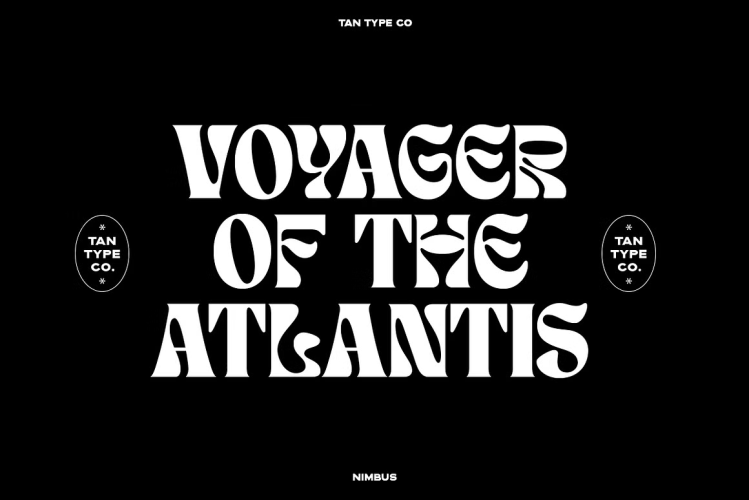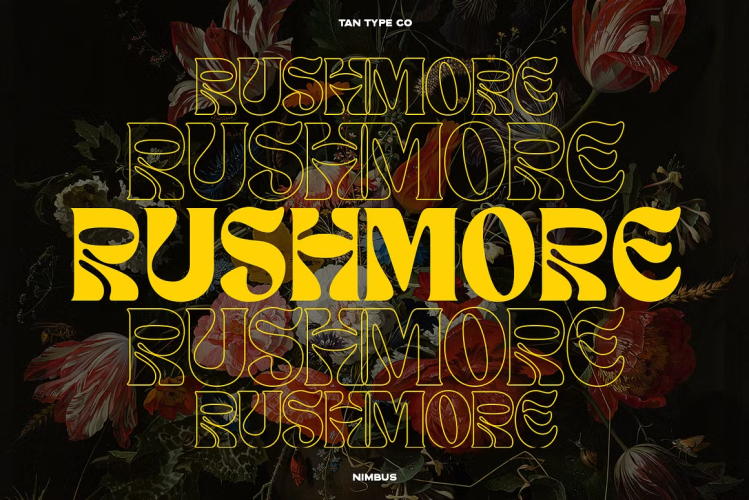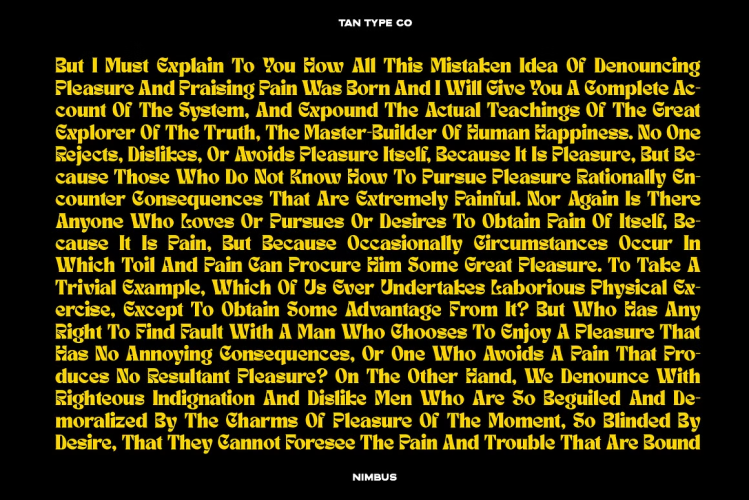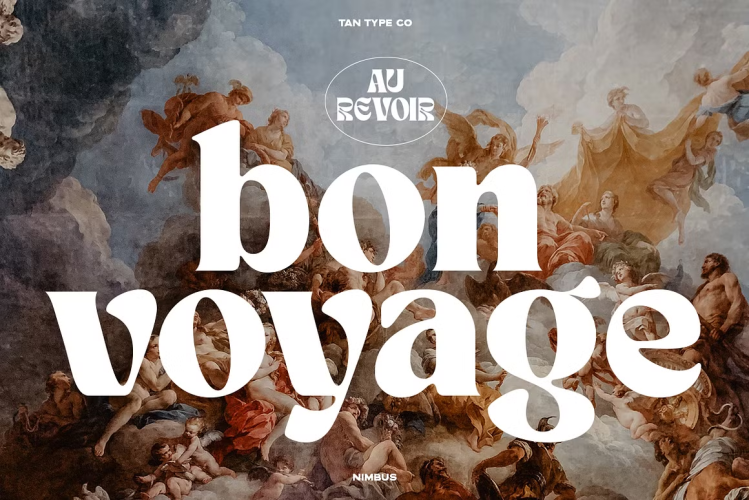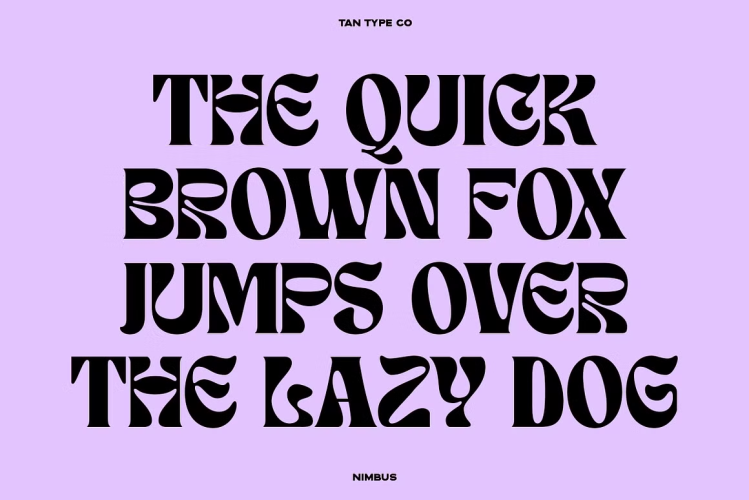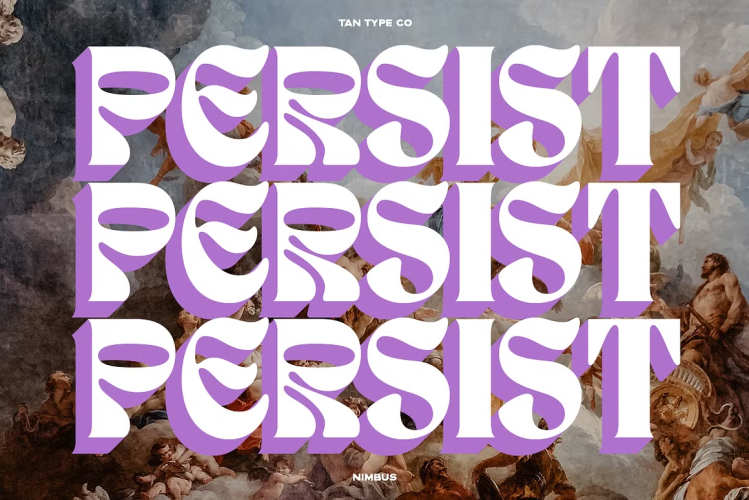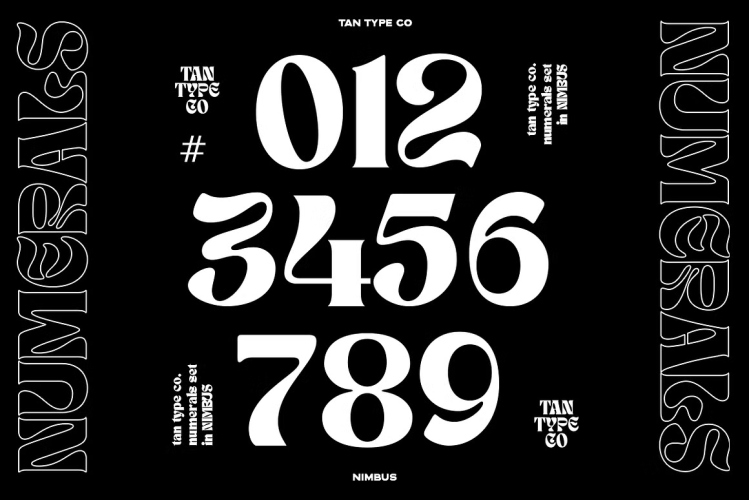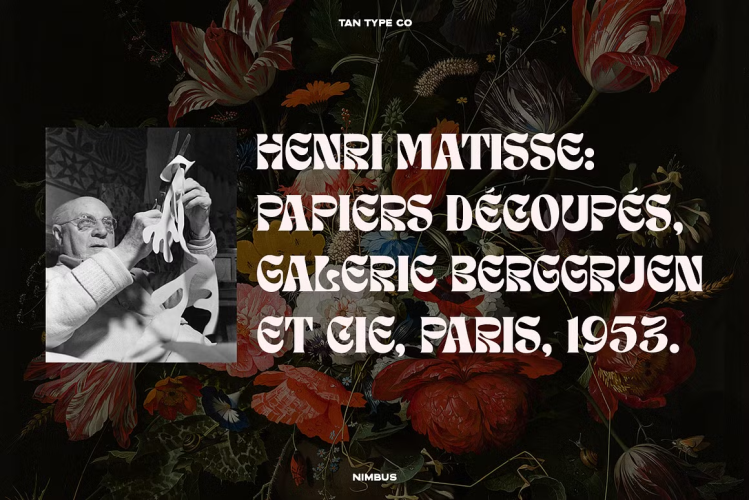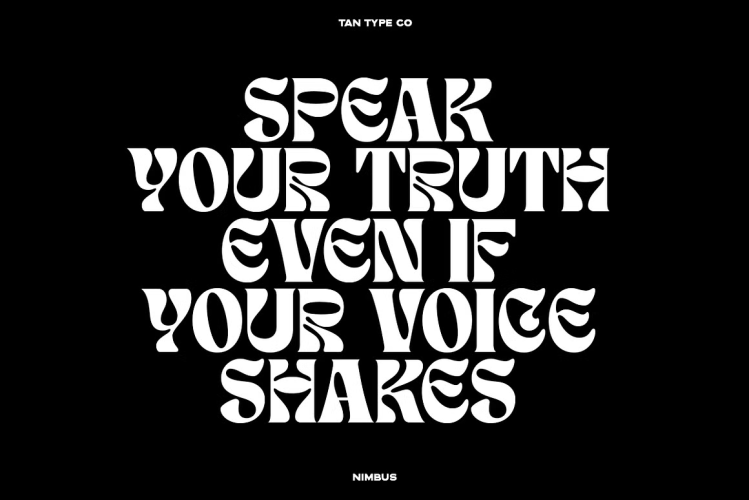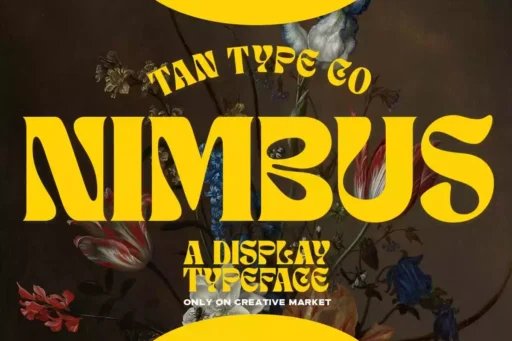
TAN NIMBUS Font
Introducing TAN NIMBUS, a font that cultivates the exuberant vibe of the psychedelic era. With its distinctive style and retro elements, this TAN NIMBUS brings a whimsy factor to your design project. Whether you do promotional posters for the music festival, design album covers, or social media creatives, TAN NIMBUS always brings a lot of pleasure and creativity into every piece.
TAN NIMBUS draws inspiration from the vibrant and accessible mood of the 1960s and 1970s, which were relatively famous for their experiments and self-expression. Its dramatic curves and out-of-place symbols, which amalgamate, make it a perfect choice for projects that demand uniqueness and originality.
However, this font is not only for making a statement; it’s also multi-functional footwear. Its clean lines and sumptuous design make it readable on various media, from screens to printed materials. The font allows you to design websites, packaging, or promotional materials professionally and effectively.
Hence, if you want to dress your project with a vintage flair and an original personality, TAN NIMBUS is the one for you. Its psychedelic-inspired aesthetic will take you to endless creativity and imagination. By TAN NIMBUS, you can fully enjoy the moment of the journey that will be forever etched in your memory.
Where TAN NIMBUS Font works best
TAN NIMBUS Font is built for size: event posters, hero headlines and billboard-style layouts.
High contrast display type like TAN NIMBUS Font reads instantly in thumbnails and motion graphics.